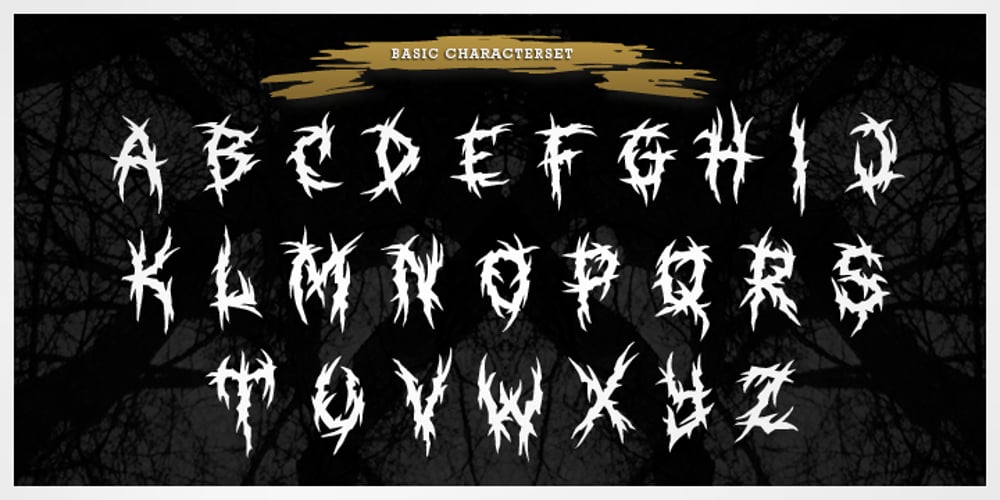
XXII Total Death Font Family was designed by Lecter Johnson and published by Doubletwo Studios. XXII Total Death contains 1 styles and family package options. The XXII TotalDeath is a metallogofont and it is perfect for creepy, bad readable, symmetric bandlogos like known in the extreme music scene. Its OpenType features are scripted to get easy and quick results. Read more in the PDF or Behance.